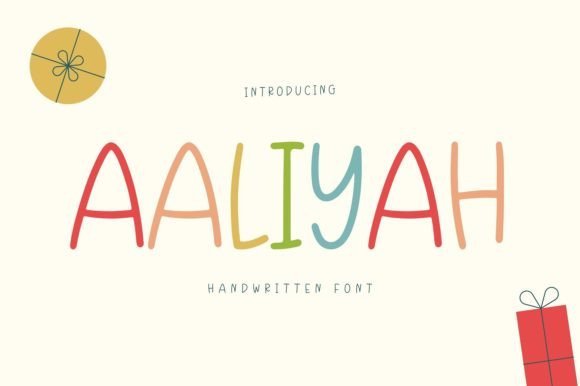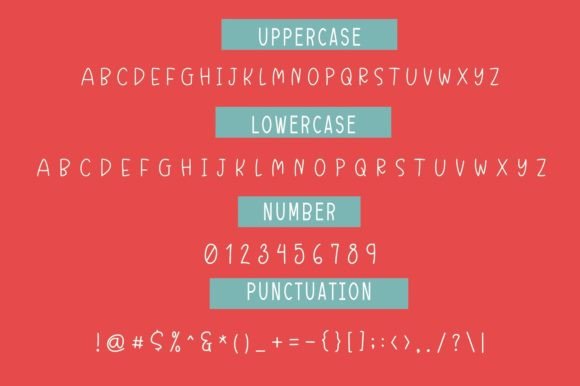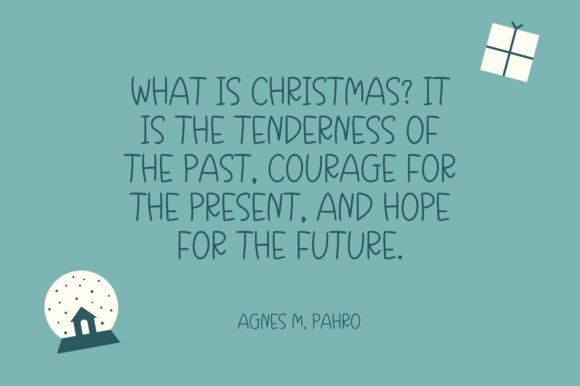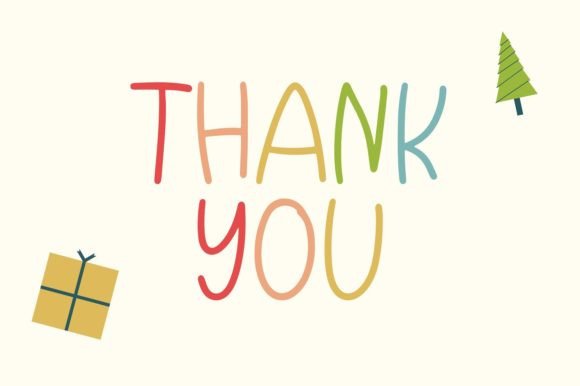
Discover the Whimsy of Aaliyah Font
As you sit at your desk, staring at a blank page, the creative juices start flowing. You envision a beautiful invitation, a catchy logo, or a heartfelt greeting card. The possibilities are endless, but the right font can make all the difference. That’s where the charming Aaliyah Font comes in – a delightful handwritten font that adds a touch of playfulness to any design.
Aaliyah Font is the perfect companion for designers seeking to infuse authenticity and personality into their work. Its light, airy characters make it suitable for a wide range of projects, from blog posts and logos to branding, ads, and invitations. Whether you’re crafting a custom greeting card or designing a photo album, Aaliyah Font is the ideal choice to bring your vision to life.
Aaliyah Font Key Features
- Unique Characteristics: Aaliyah Font features a unique blend of modern and elegant styles, with subtle nuances in letterforms that give it a distinctive look.
- Font Style: Aaliyah Font is available in Regular and Bold weights, providing flexibility for designers to choose the right style for their project.
Aaliyah Font Review
When I first laid eyes on the Aaliyah font, I was immediately drawn to its sleek, modern aesthetic. The combination of rounded corners and sharp edges ✨ creates a visually appealing contrast that adds depth to any design. The font’s clean lines and minimal ornamentation make it perfect for modern branding and digital projects.
However, there are some limitations to consider. The Aaliyah font may not be suitable for traditional or vintage-themed projects ⚠️, as its modern feel may clash with the desired aesthetic. Additionally, the font may not be as versatile as some other options, making it less suitable for projects that require multiple font weights or styles.
- Modern and sleek design ✨
- Clean lines and minimal ornamentation
- Perfect for digital and modern branding projects
- Might not be suitable for traditional or vintage-themed projects ⚠️
- Not as versatile as some other font options
Overall, I think the Aaliyah font is a great choice for designers who want to create modern and sleek designs. While it may have some limitations, its unique aesthetic makes it a great addition to any design library.
Tips for Getting the Most Out of Aaliyah Font
For optimal results, use Aaliyah Font in conjunction with bold or italic styles to add emphasis and visual interest.
Experiment with different font sizes and colors to create a cohesive and engaging design.
Aaliyah Font is ideal for use in:
Typography-based designs, such as posters and flyers
Wedding invitations and event materials
Alternatives to Aaliyah Font
Aaliyah Font is a popular font known for its elegant and modern feel. However, there are several alternatives that designers can consider. Here are a few options:
Playfair Display is a high-end serif font that is perfect for creating a luxurious and sophisticated look. It is ideal for use in high-end branding, advertising, and editorial design. Compared to Aaliyah Font, Playfair Display has a more formal and traditional feel, making it a great choice for projects that require a sense of elegance and refinement.
Great Vibes is a modern script font that is perfect for creating a fun and playful look. It is ideal for use in branding, advertising, and social media design. Compared to Aaliyah Font, Great Vibes has a more casual and relaxed feel, making it a great choice for projects that require a sense of creativity and whimsy.